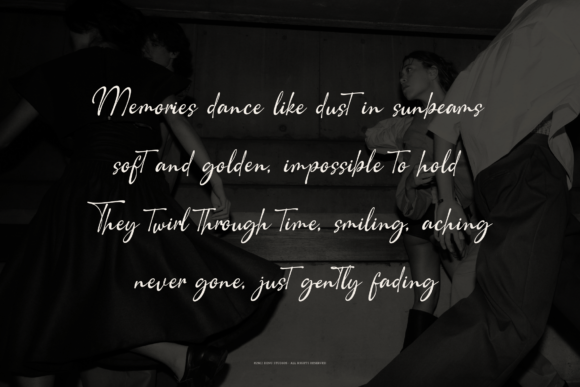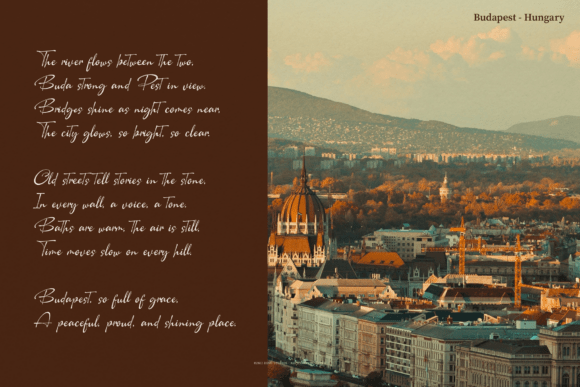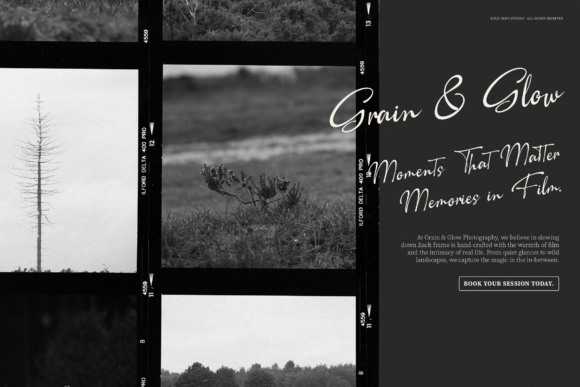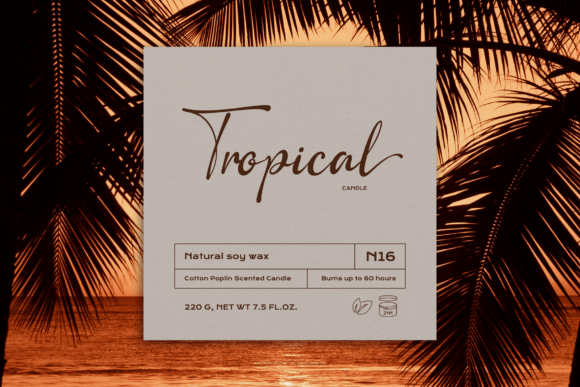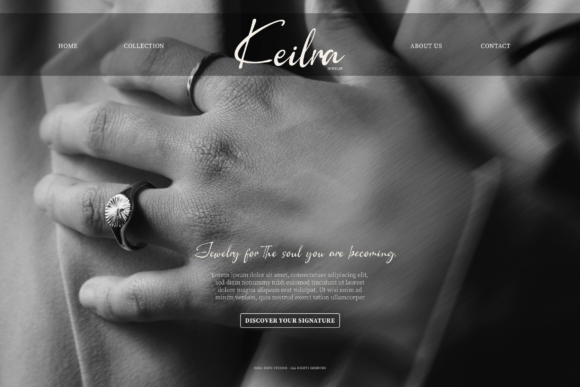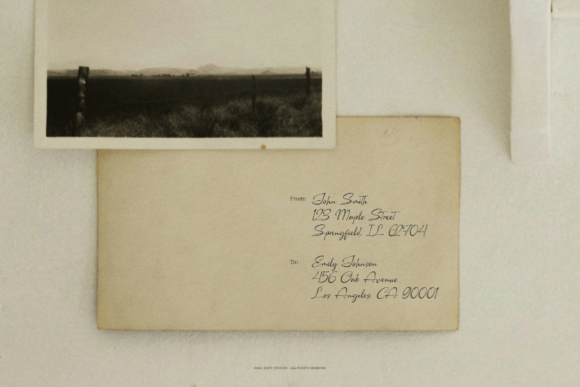
Camerelia Family Font: Elevate Your Design with Elegance and Sophistication
In the world of typography, a font can make all the difference in conveying the right message and setting the tone for your brand or project. If you’re looking for a script font that exudes elegance, sophistication, and a touch of modern flair, look no further than the Camerelia Family Font. This beautiful signature script font is designed to make your designs stand out, whether you’re working on personal branding, logos, wedding invitations, social media, or high-end packaging.
The Essence of Camerelia Family Font
Camerelia Family Font is a graceful script font that boasts flowing strokes and natural curves, giving it a timeless and effortlessly chic look. With its elegant appearance, this font is perfect for designers and crafters who want to add a touch of sophistication to their work. The font features ligatures and stylish alternates, which provide a handwritten look that’s both classic and modern.
Key Features of Camerelia Family Font
- Flowing Strokes and Natural Curves: Camerelia’s design is characterized by its smooth, flowing strokes and natural curves, making it perfect for creating elegant and sophisticated designs.
- Ligatures and Stylish Alternates: The font features ligatures and stylish alternates, which give it a handwritten look that’s both unique and visually appealing.
- Modern Flair: Camerelia has a touch of modern flair, making it perfect for designers who want to create contemporary and stylish designs.
- Elegant and Sophisticated: The font’s elegant and sophisticated appearance makes it perfect for high-end designs, such as luxury branding, wedding invitations, and premium packaging.
Use Cases for Camerelia Family Font
Camerelia Family Font is a versatile font that can be used in a variety of design projects, including:
- Personal Branding: Use Camerelia to create a unique and elegant brand identity that reflects your personality and style.
- Logos: The font’s elegant appearance makes it perfect for creating sophisticated logos that stand out.
- Wedding Invitations: Camerelia’s elegant and sophisticated appearance makes it perfect for creating beautiful wedding invitations that set the tone for a special day.
- Social Media: Use Camerelia to create engaging and stylish social media graphics that showcase your brand’s personality.
- High-End Packaging: The font’s luxurious appearance makes it perfect for high-end packaging designs that require a touch of elegance and sophistication.
Why Choose Camerelia Family Font?
With so many script fonts available, why choose Camerelia Family Font? Here are a few reasons why:
- Unique and Elegant: Camerelia’s unique and elegant design sets it apart from other script fonts, making it perfect for designers who want to create distinctive designs.
- Versatile: The font’s versatility makes it suitable for a wide range of design projects, from personal branding to high-end packaging.
- High-Quality: Camerelia Family Font is a high-quality font that’s designed to deliver exceptional results, even at large sizes.
In conclusion, Camerelia Family Font is a beautiful signature script font that exudes elegance, sophistication, and a touch of modern flair. With its flowing strokes, natural curves, and stylish alternates, this font is perfect for designers and crafters who want to create stunning designs that stand out. Whether you’re working on personal branding, logos, wedding invitations, social media, or high-end packaging, Camerelia Family Font is an excellent choice.